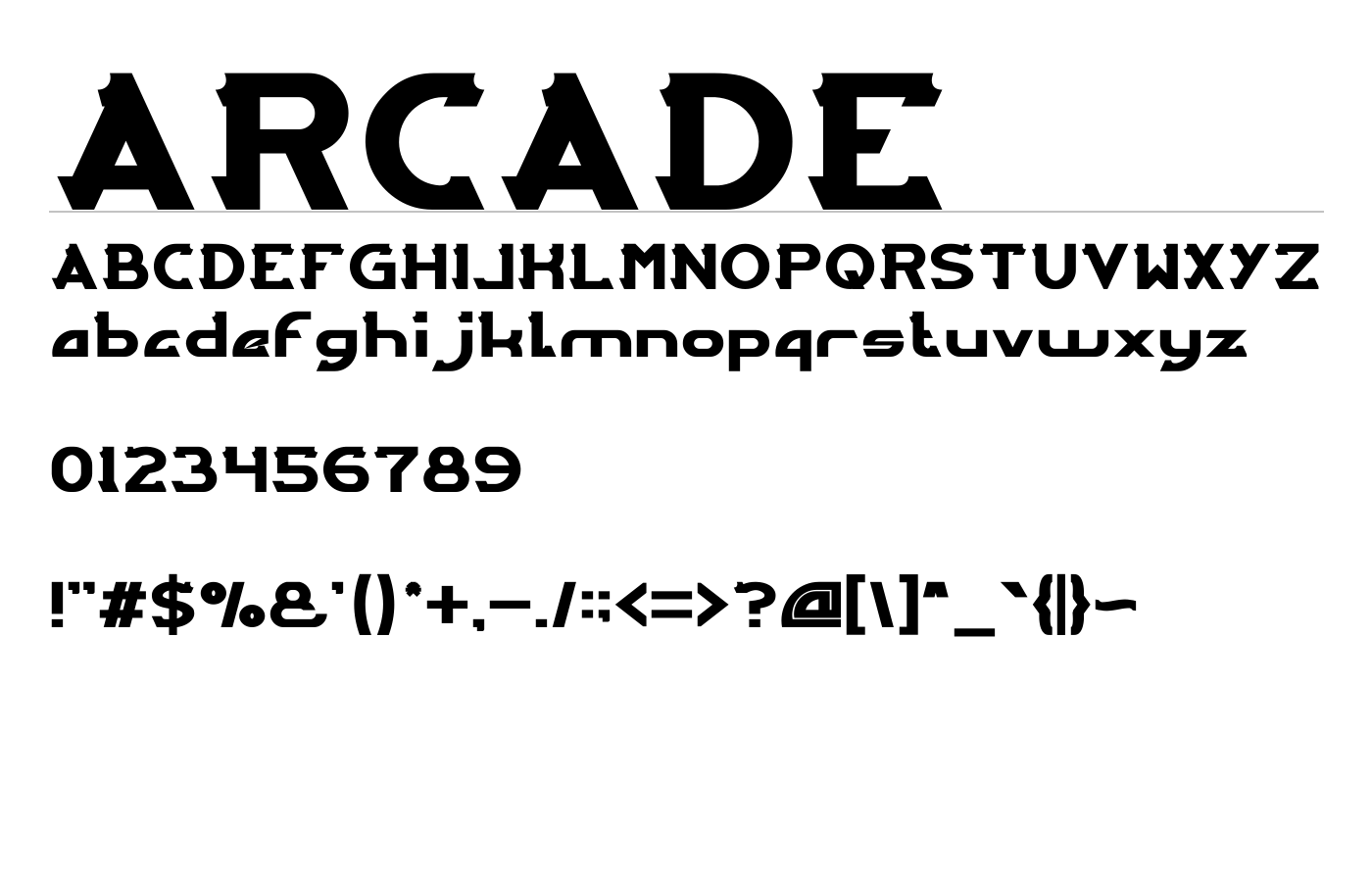
ARCADE is a bold, slab serif font with a strong, geometric structure and high contrast between thick and thin strokes that evoke a vintage, arcade-style vibe. Its sharp, chunky serifs and unique letterforms give it a playful yet authoritative personality, making it ideal for eye-catching headlines, logos, posters, and retro-themed designs. This font works best when you want to convey energy and nostalgia with a modern twist.
ARCADE Font
About ARCADE Font